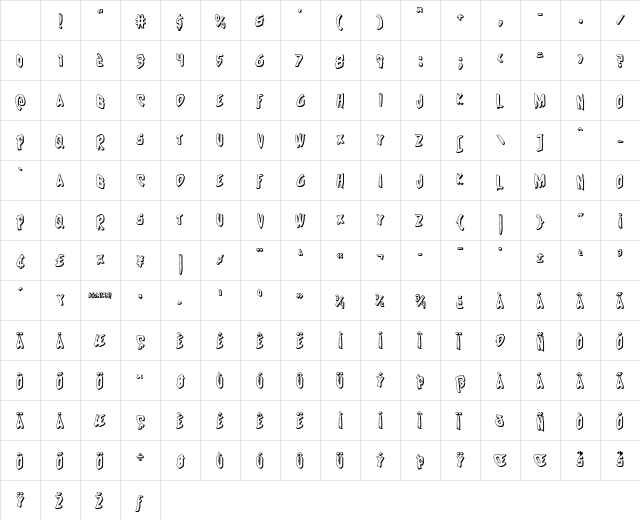
Complete Cyrus the Virus 3D Regular glyph index. Displaying only characters natively supported by Cyrus the Virus 3D Regular font.
Cyrus the Virus 3D is a composed and adaptable typeface that performs quietly and consistently across a wide range of design contexts.